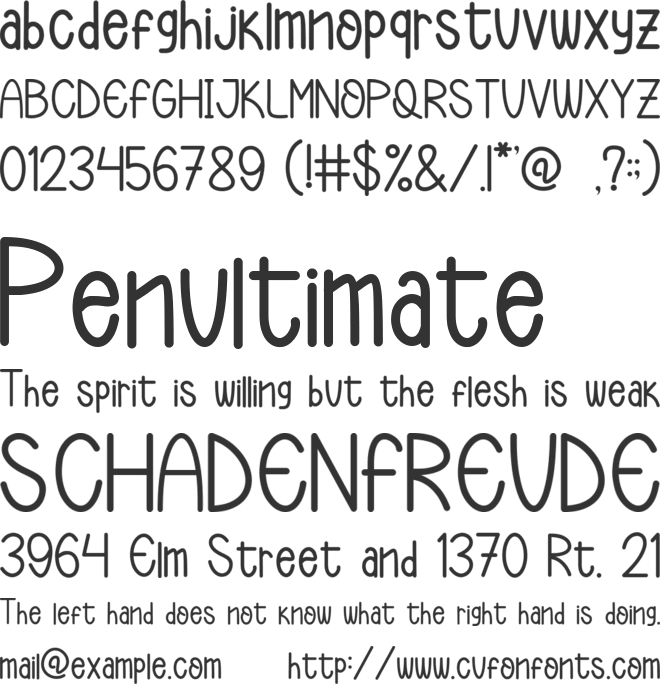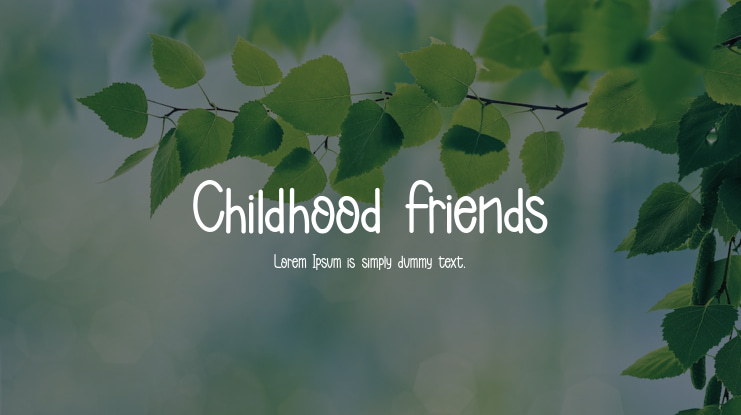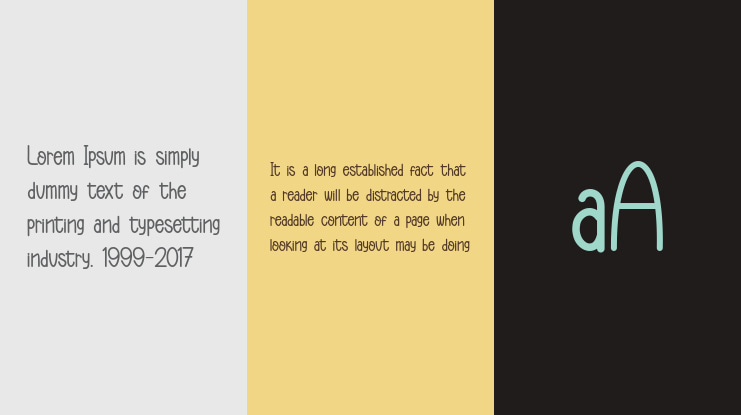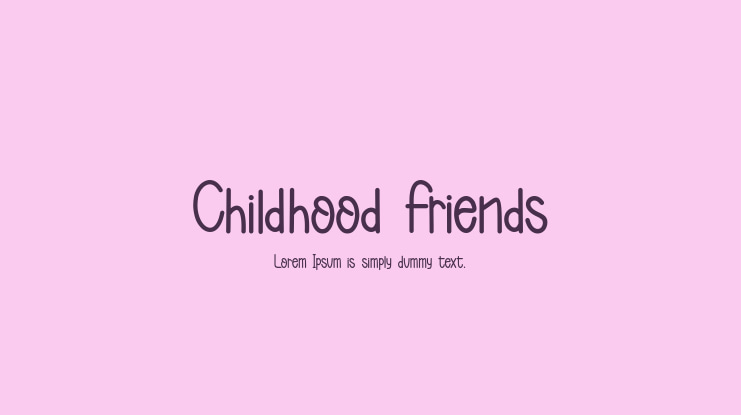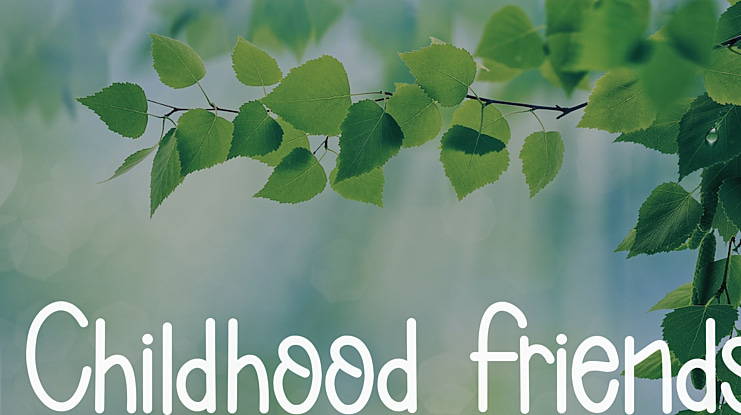
Childhood Friends Font
Hello Kids is a thick and playful display font. Take your typography designs to the next level with this eye-catching typeface! Use it whenever you need to create eye-catching typography for all kinds of projects, posters, t-shirt designs, titles, headlines and much more.
Childhood Friends font preview